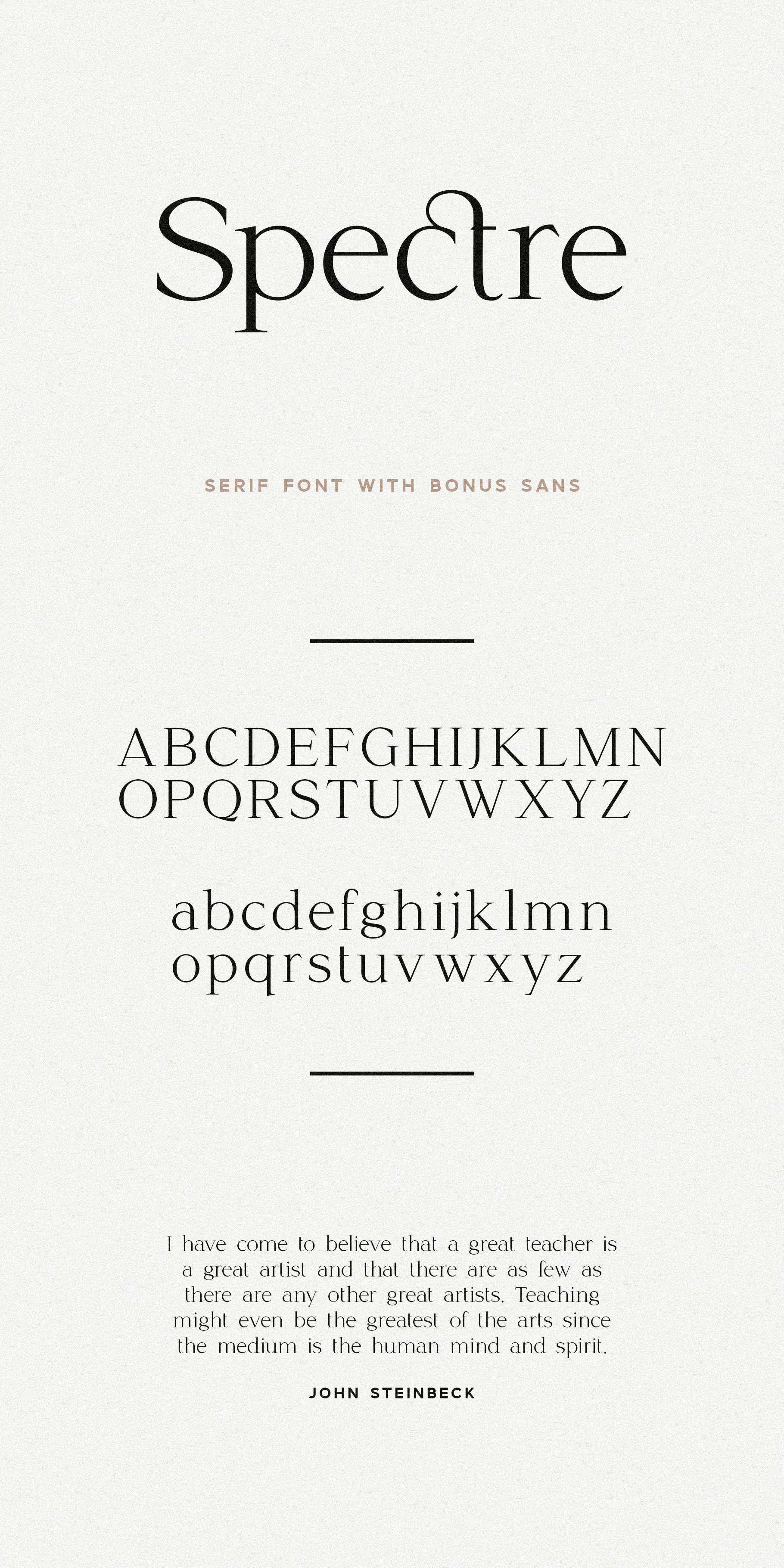
Spectre Font Duo Sans & Serif
Spectre is a gorgeous new serif & sans font duo made to perfectly complement one another.
Classic curves and crisp serifs make Spectre Serif feel modern and nostalgic, all at once, while still leaving enough simplicity to use for both headings and body type. It also comes with four special ligatures (ct, st, fi, & fl) that give body text extra flair and readability, and I can't help but work them into any logos I possibly can!
Spectre Sans, on the other hand, is a simple yet beautiful all-caps font designed to perfectly contrast the serif.
Love the soft nature of this font. I thought it would come with glyphs since the feature image features that gorgeous ligature, but it doesn't come with any alternates/ligatures/swashes. Other than that, great typeface!